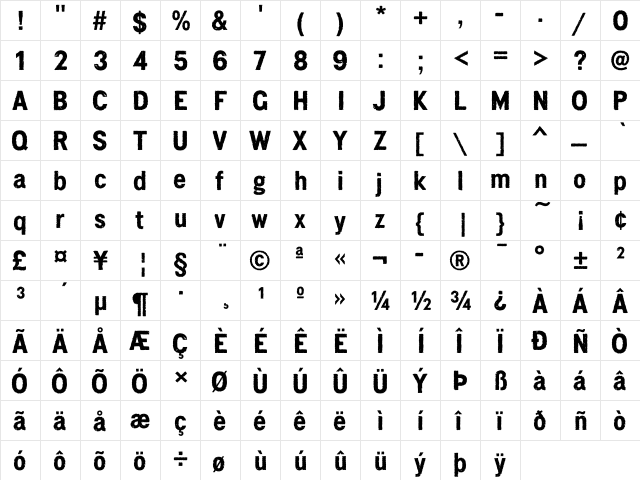
Penny Lane Corroded Bold Bold
| Foundry | K-Type |
| Designer | Keith Bates |
| Copyright | 14 K-Type ENNY LANE is a sans serif derived from twentieth-century cast-iron signs displaying Liverpool street names. Although the lettering used for these vintage signs varies in width and style, this semi-condensed sans is fairly typical. |
Design Context for Penny Lane Corroded Bold Typeface
Penny Lane Corroded Bold offers clean, dependable letterforms without strong stylistic allegiance, making it a practical choice for designers who need flexibility. Its bold stroke weight gives it real presence on the page.